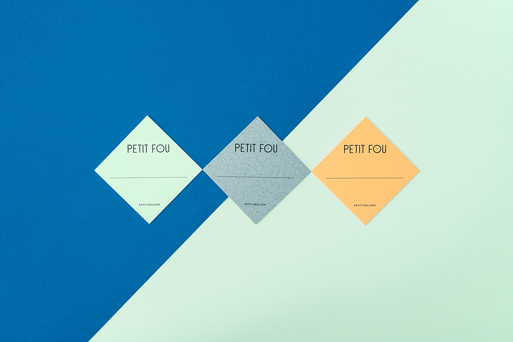
Petit Fou - A Corporate identity for “little crazy one“
The concept of thecorporate design is based on the brand name Petit Fou which translates as “little crazy one“. As well as the product, the brand is young, fun and charming. The custom made font adapts the 45° angles from the clutches base structure and provides many quirky details. The logo follows a 9 point grid along every format and offers playful application possibilities. Pleasant details are included, for example the “Thank you“: When the invoice is folded, it is the first thing to see when opening the envelope. The guiding thread is continued as far as the custom packaging, where the box is signed by each clutch artisan.